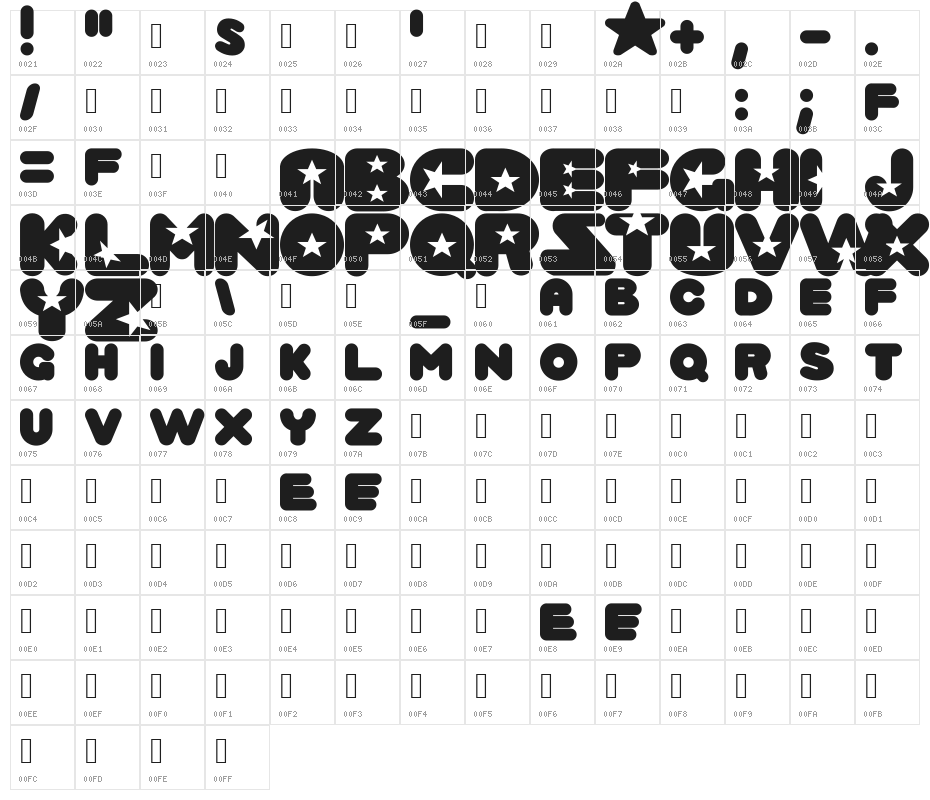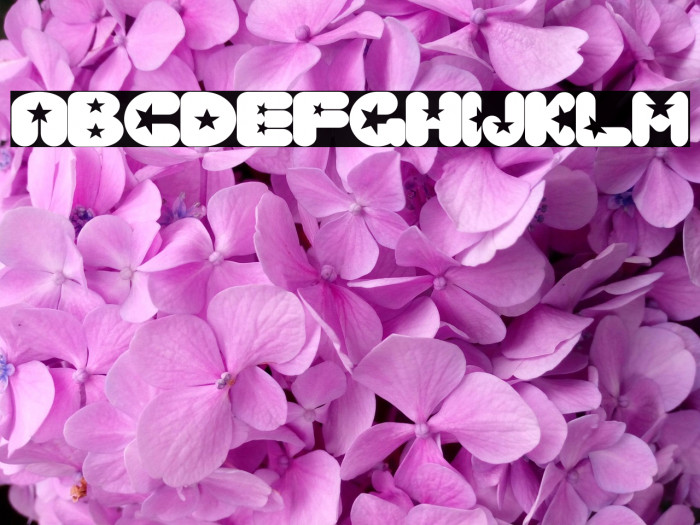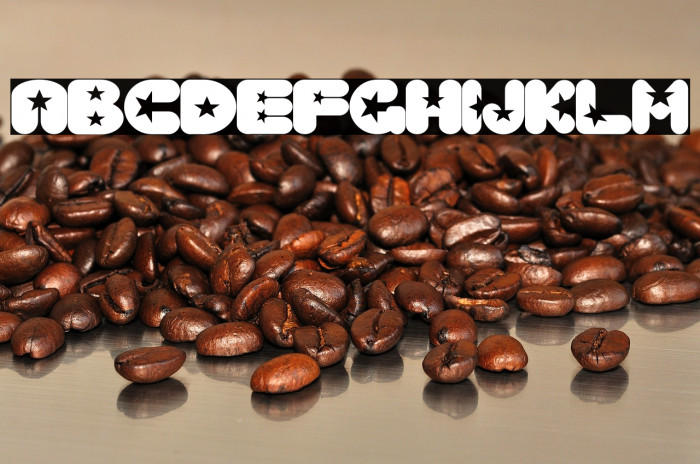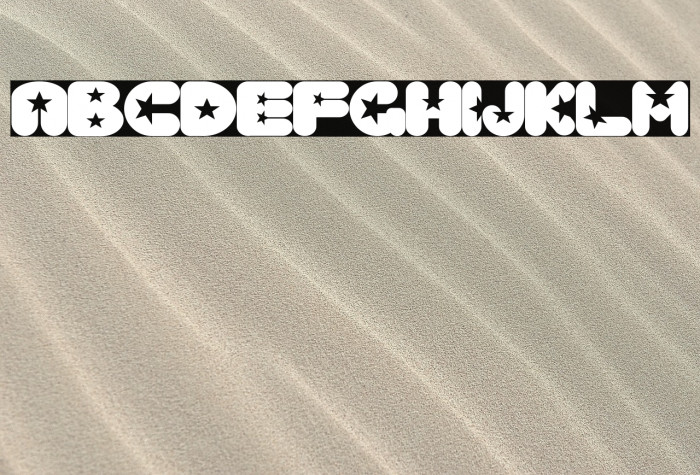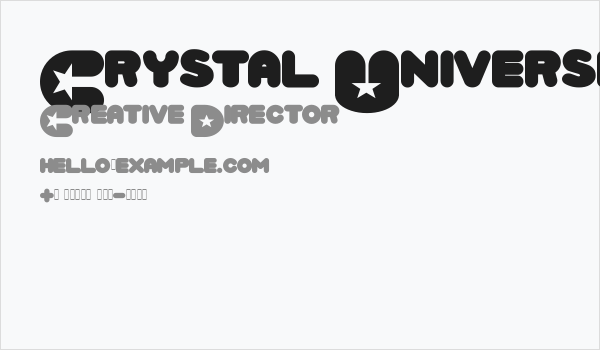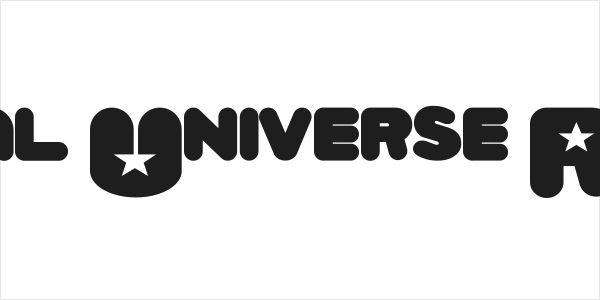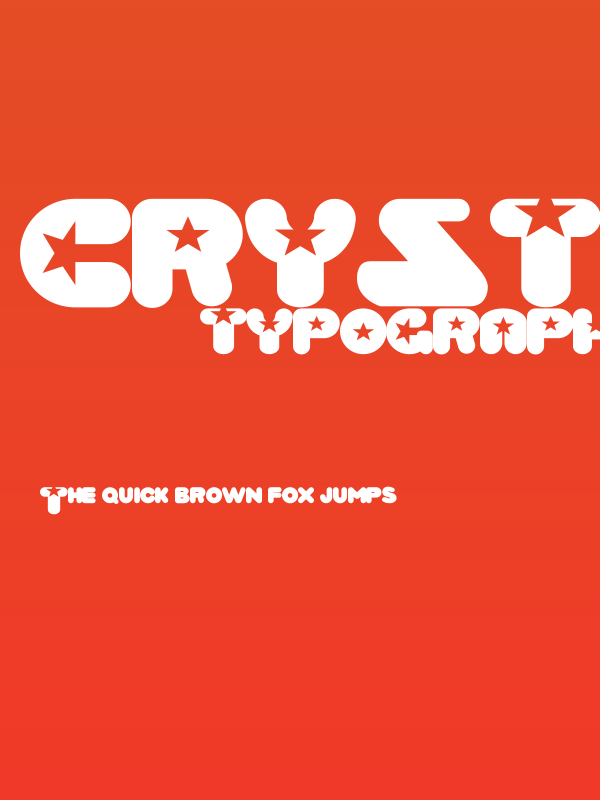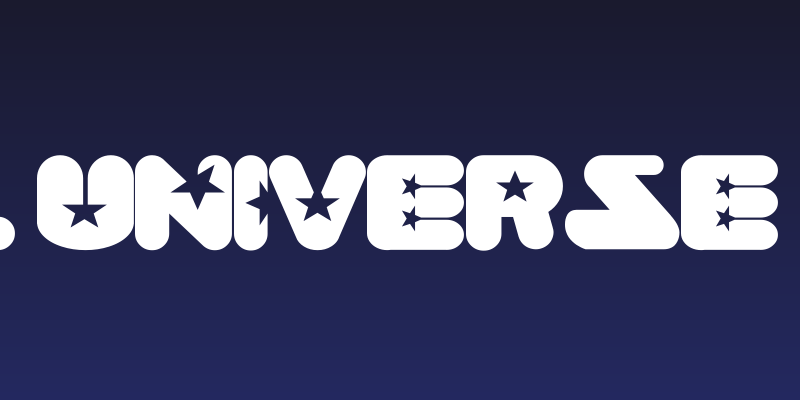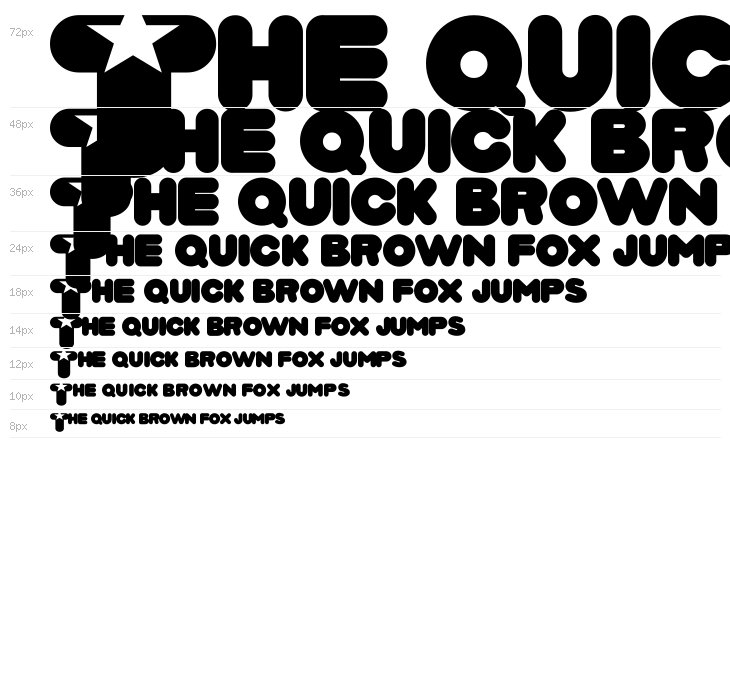
Crystal Universe Regular Font
Crystal Universe Regular Description
This font features a bold and playful design with a unique star motif embedded within each character. The uppercase letters are rounded and substantial, giving a sense of fun and creativity. The lowercase letters maintain the same boldness, ensuring consistency across the typeface. The numbers are equally bold, matching the overall style. Special characters include a mix of playful symbols that complement the star theme. This font is ideal for projects that require a whimsical and eye-catching appearance, such as children's books, party invitations, or playful branding.
| Proposed Projects | Ideal for children's books, party invitations, playful branding, and creative posters. |